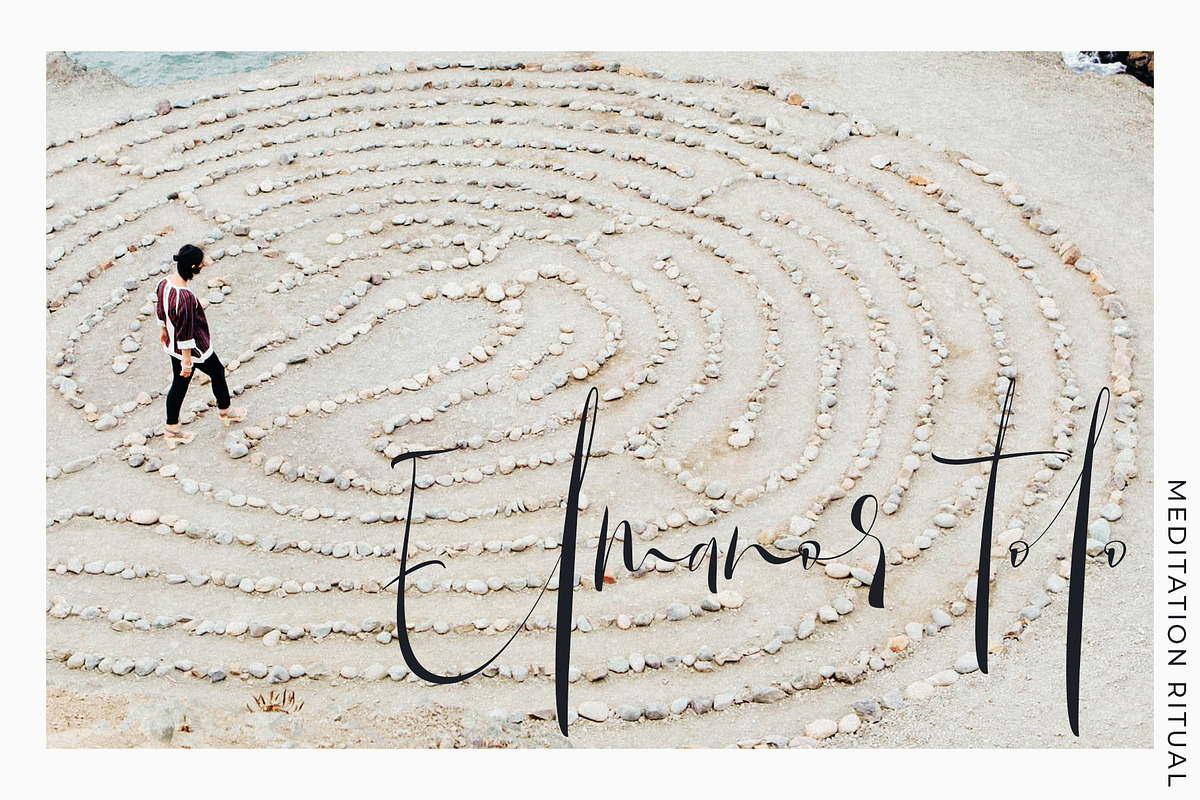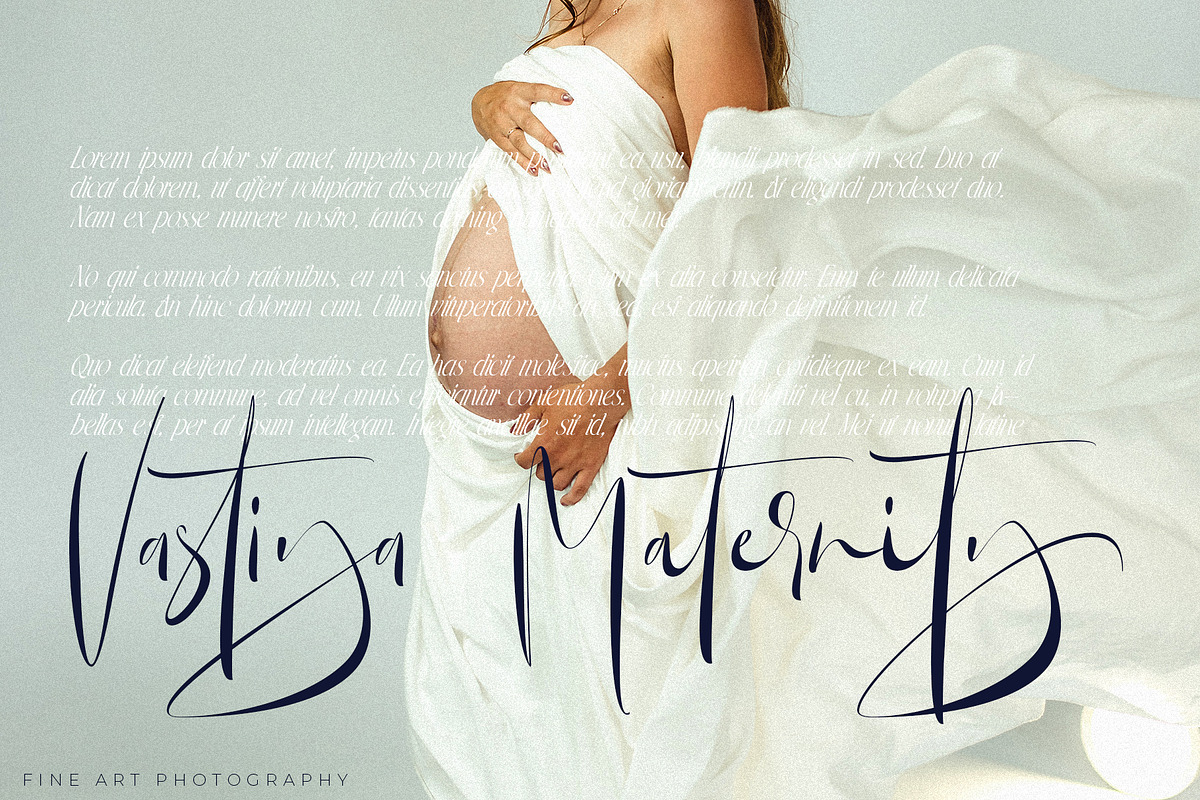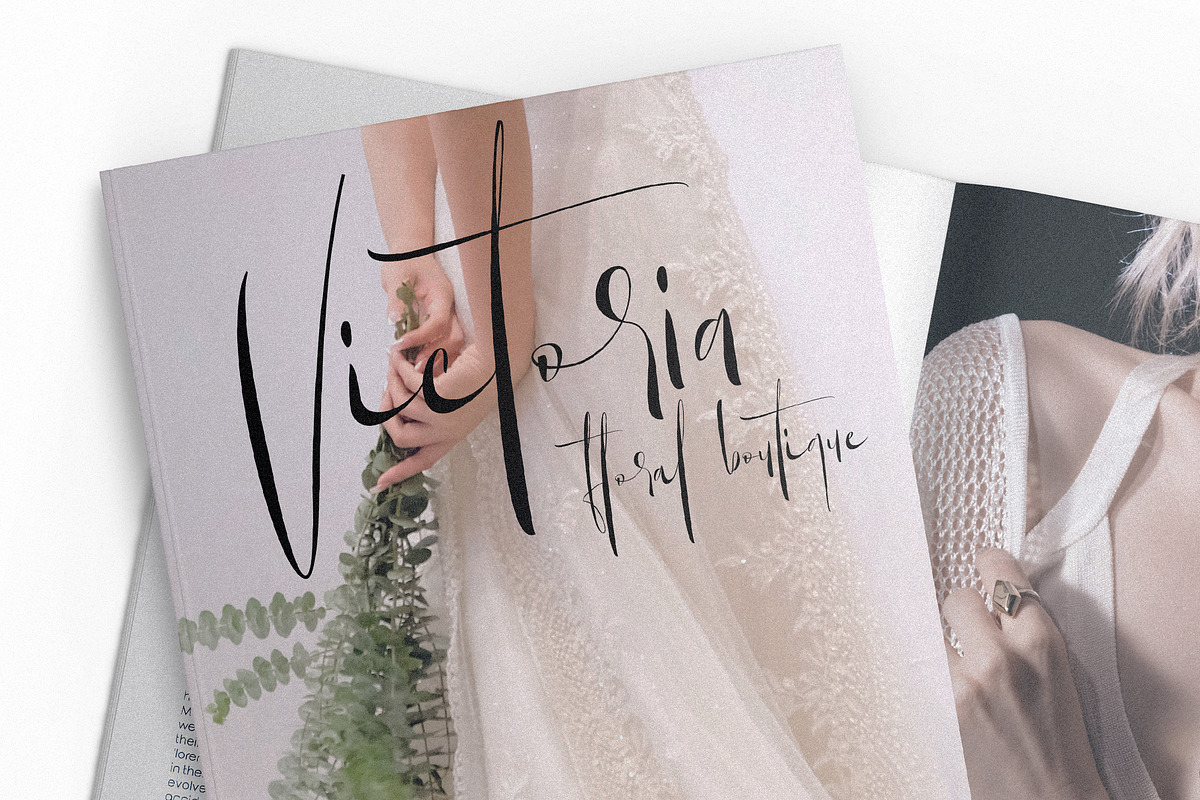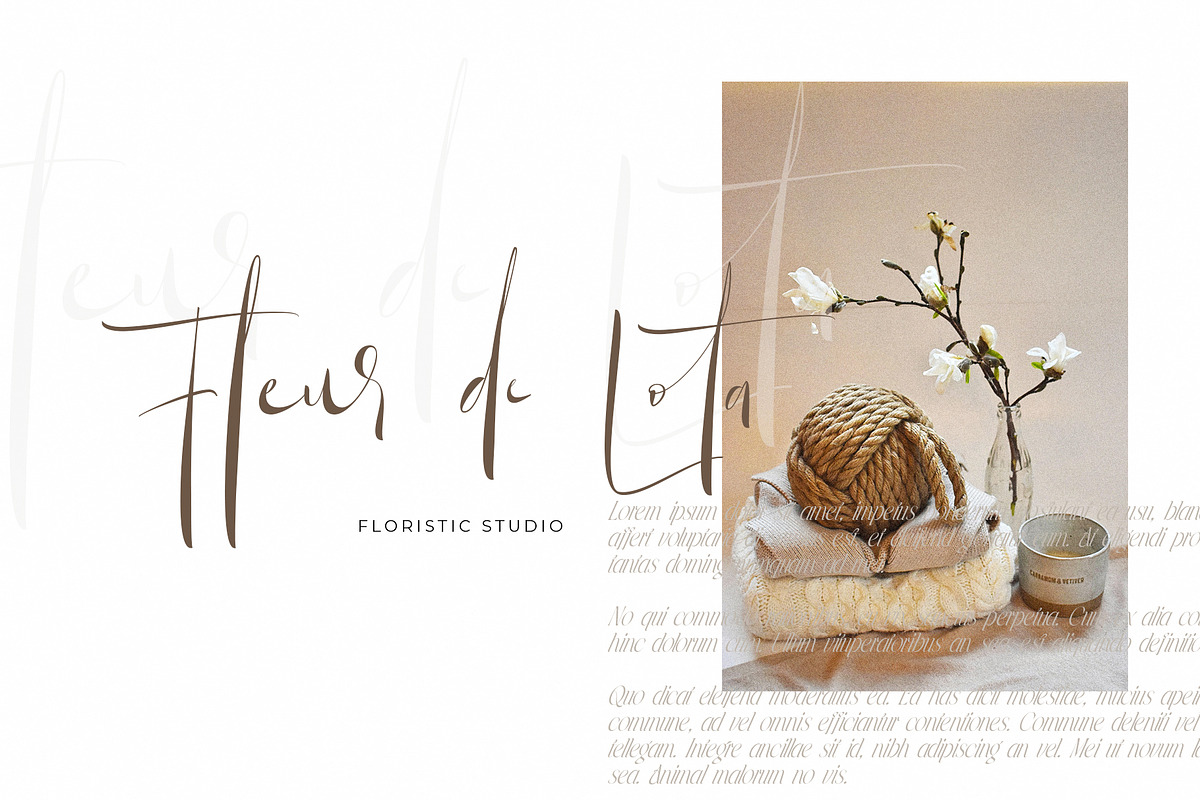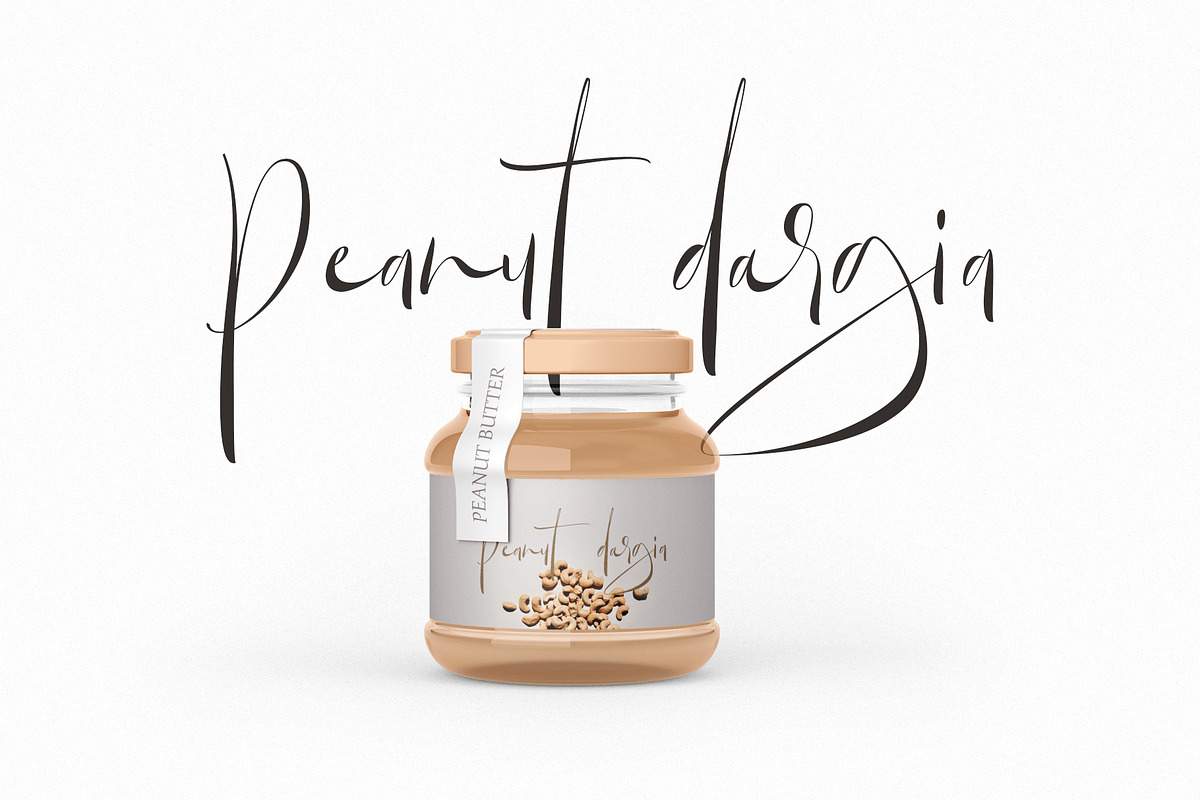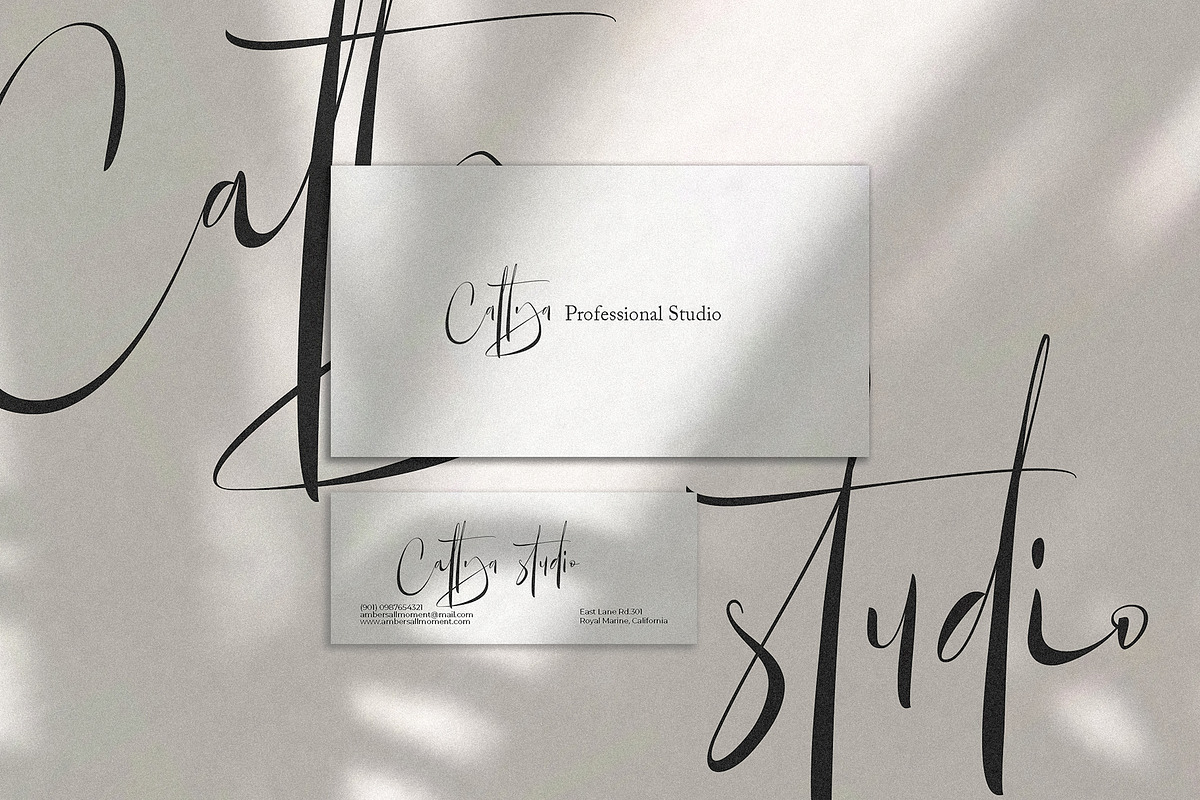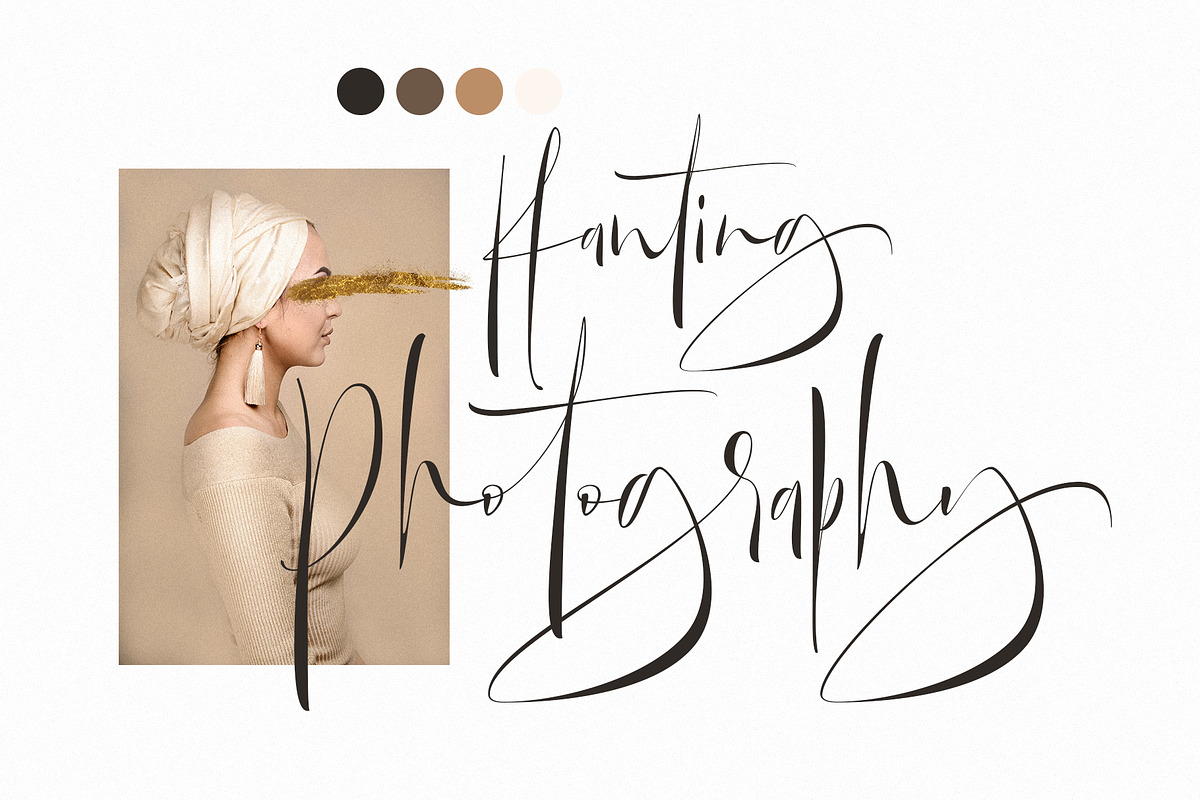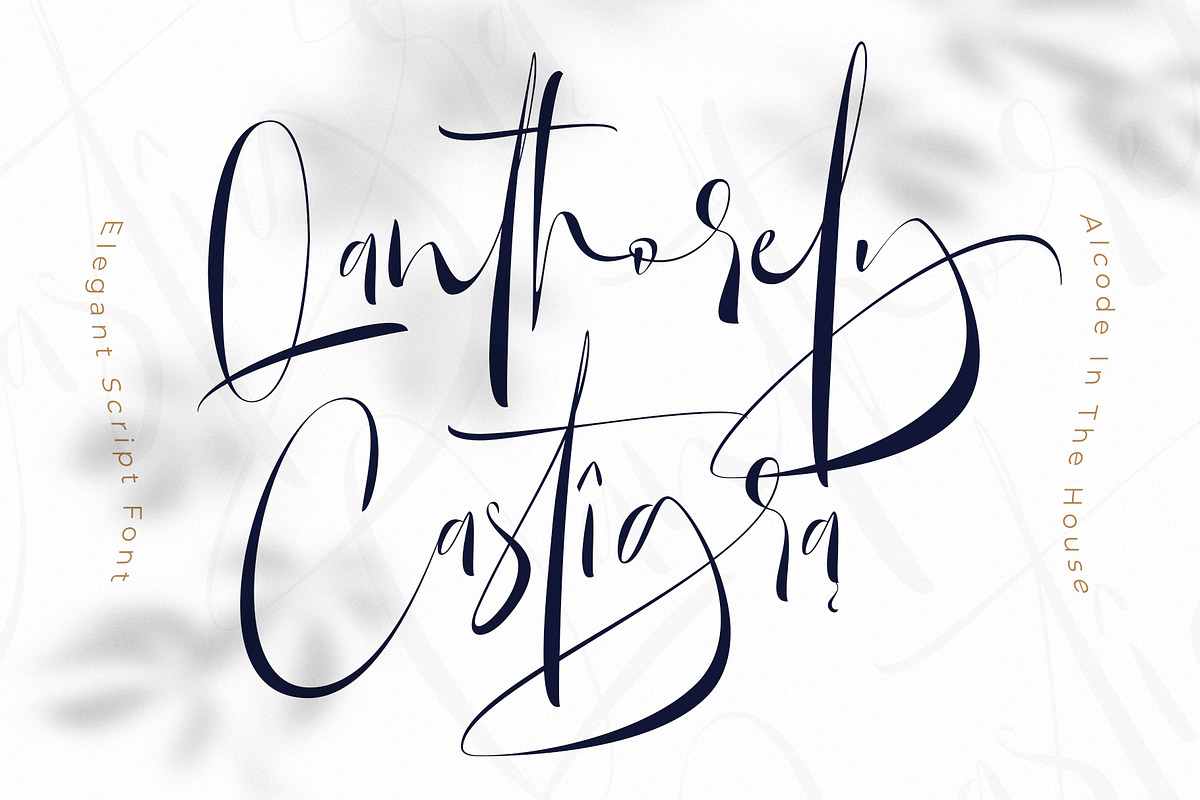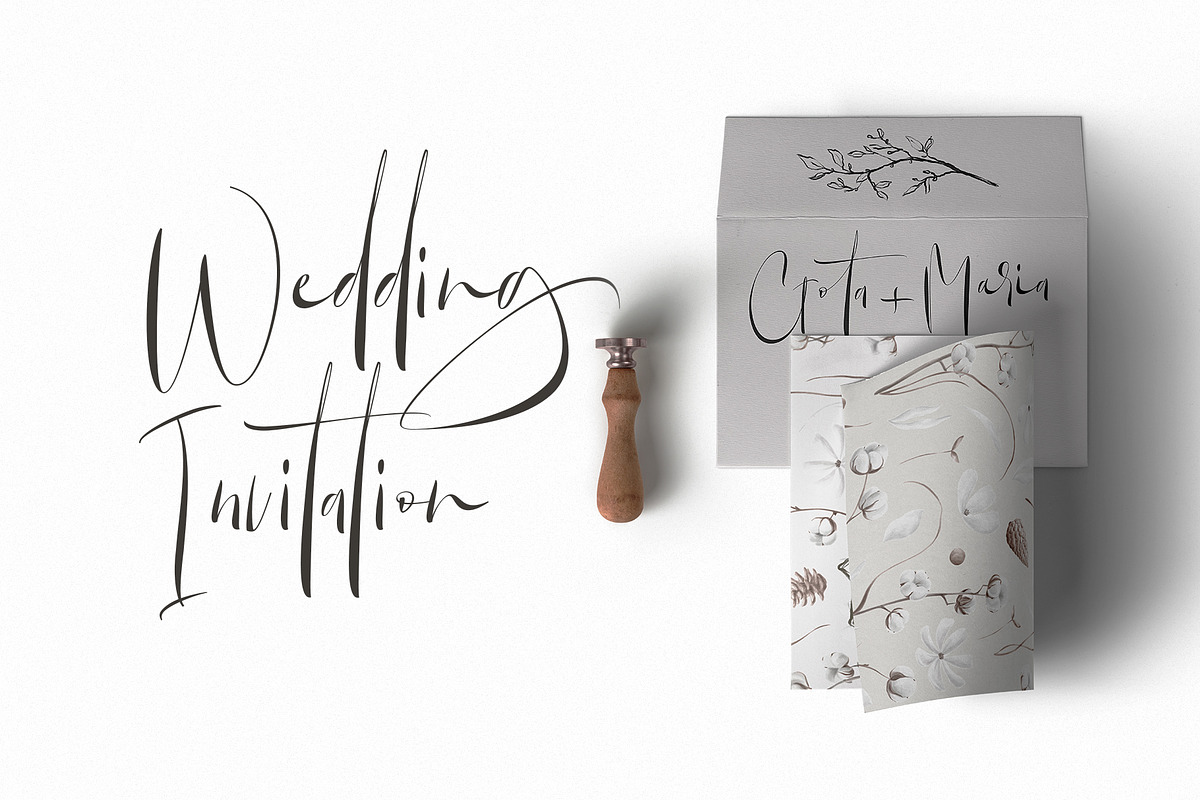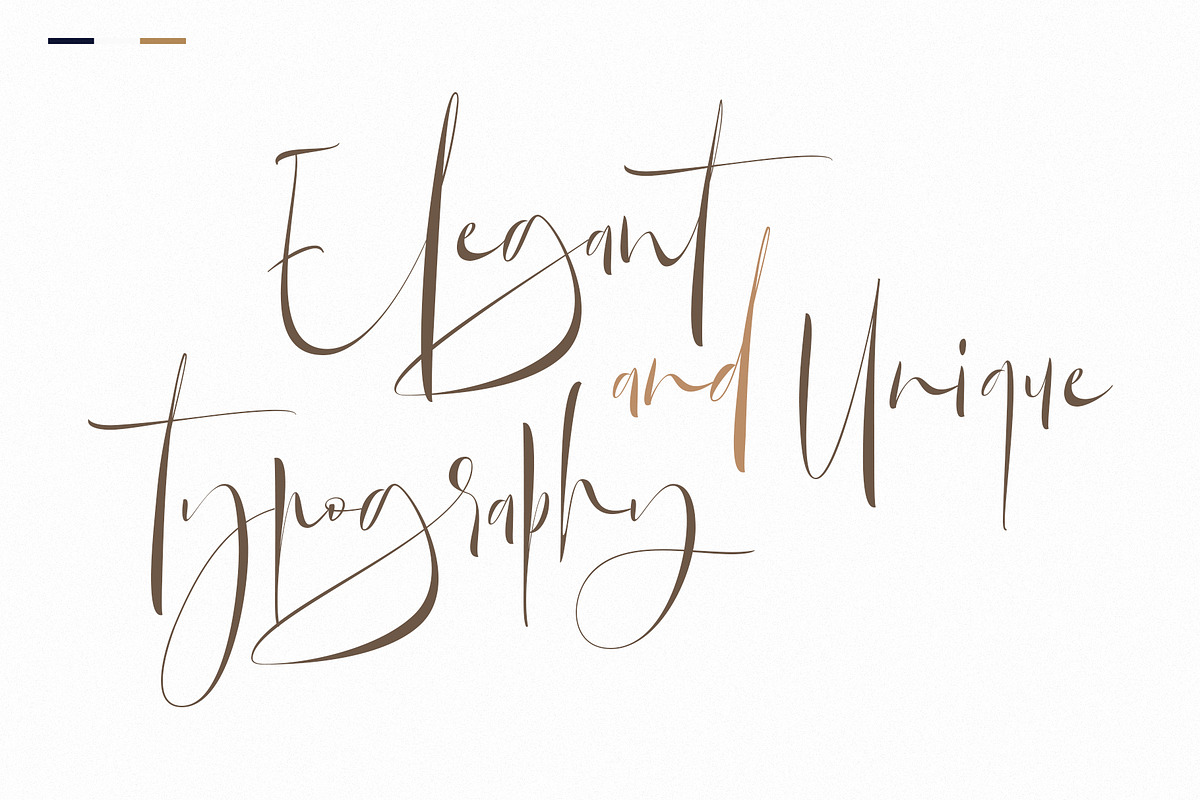
Qanthorely Castigra
Qanthorely Castigra an elegant and unique calligraphy font. Carefully designed to work together in harmony that makes it perfect for wedding media, book covers, greeting cards, logos, branding, business cards and certificates, even for any design work that requires unique, formal or luxury.
Try Qanthorely Castigra, enjoy the richness of OpenType features and let her fun and elegant excitement make you happy and enhance your creativity! You can use this font very easily.
Included Multilingual Support And Special Ligatures